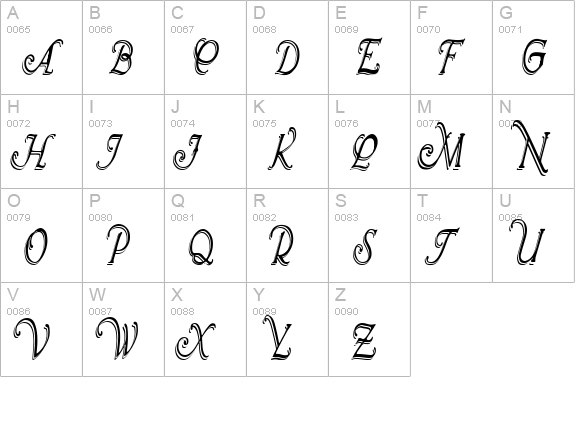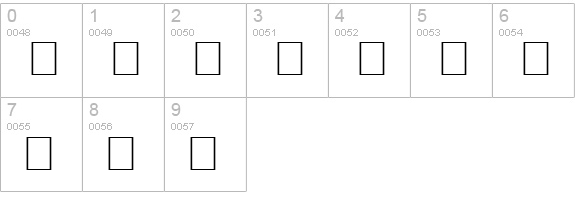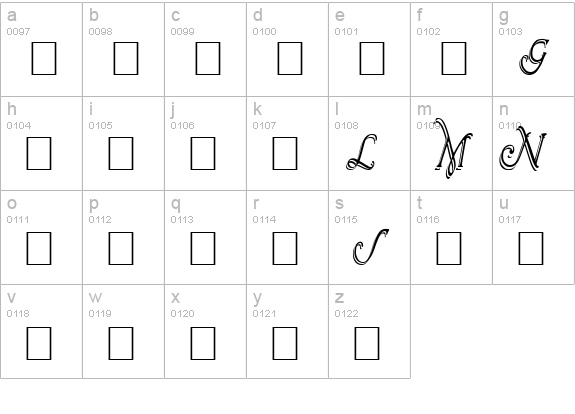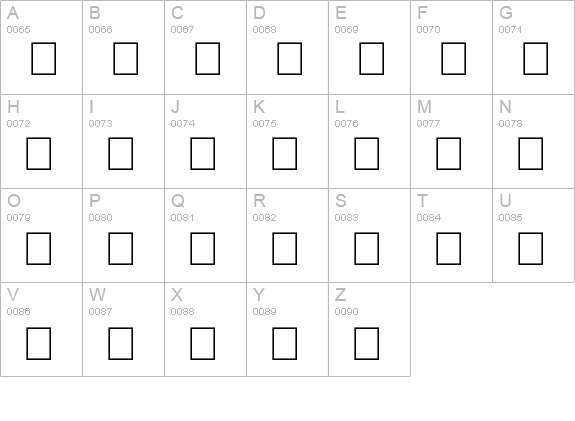
Wrenn Initials Shadowed Cond is a distinctive, condensed-width variant in the Wrenn typeface family \xE2\x80\x94 well suited to design and typography projects.